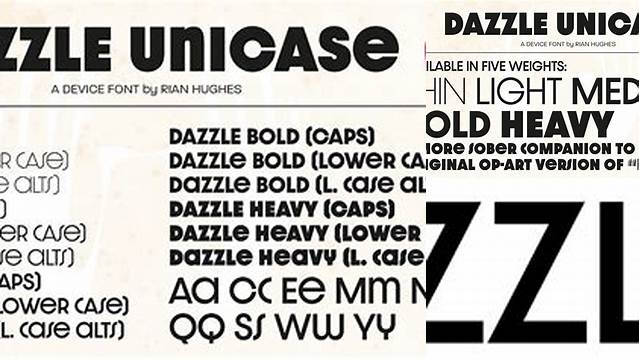
Hey guys! Ever stumbled upon a font that just screams unique and bold? Well, let's talk about Dazzle Unicase Heavy, a font that's been turning heads in the design world. In this guide, we're diving deep into everything you need to know about this font, from what makes it so special to where you can snag it for free. So, buckle up and let's get started!
1. What is Dazzle Unicase Heavy Font?
Dazzle Unicase Heavy is more than just a typeface; it's a statement. Its bold, unicase design gives it a modern and somewhat futuristic vibe. The term "unicase" means that the font blends uppercase and lowercase letters into a single form, creating a cohesive and striking visual appearance. This makes Dazzle Unicase Heavy particularly effective for headlines, logos, and branding materials where you need to grab attention. The heavy weight of the font adds to its impact, ensuring it stands out in any design. When you're thinking about making a bold statement, this font really comes into its own, offering a blend of readability and visual punch that's hard to ignore. Whether you're designing a website, a poster, or even a social media campaign, the unique character of Dazzle Unicase Heavy can elevate your project.
2. Key Features of Dazzle Unicase Heavy
So, what makes Dazzle Unicase Heavy stand out from the crowd? It's all in the details, guys. Firstly, the bold weight gives it a commanding presence. It's not a font that fades into the background; it demands attention. Then there's the unicase design – a blend of uppercase and lowercase that creates a consistent and visually appealing look. The clean lines and sharp edges give it a modern edge, perfect for contemporary designs. Another key feature is its versatility. While it shines in headlines and logos, it's also surprisingly readable in shorter body text. Plus, it often includes a range of characters and symbols, giving you plenty of options for your projects. In a nutshell, Dazzle Unicase Heavy combines boldness, style, and functionality, making it a go-to choice for designers looking to make an impact.
4. Using Dazzle Unicase Heavy in Graphic Design
Now that you've got Dazzle Unicase Heavy, how do you actually use it in your graphic design projects? This font is a powerhouse for headlines and titles, where its bold and unique style can really shine. Think about using it in posters, flyers, or website headers to grab attention. It's also fantastic for logo design, giving brands a modern and edgy look. When incorporating it into your designs, consider the overall aesthetic you're aiming for. Dazzle Unicase Heavy pairs well with minimalist designs, where its boldness can be the focal point. However, it can also work in more complex layouts, provided you balance it with simpler fonts for body text. Experiment with different sizes, weights, and colors to see what works best for your project. Remember, the key is to use it intentionally and strategically to create a visually compelling design.
5. Dazzle Unicase Heavy for Logo Design
When it comes to logo design, Dazzle Unicase Heavy can be a game-changer. Its distinctive unicase style and bold weight make it perfect for creating logos that are both memorable and modern. Think about brands that want to project a sense of innovation or edginess – this font can help convey that message effectively. The unique letterforms ensure that your logo stands out from the competition, making it instantly recognizable. When using Dazzle Unicase Heavy in a logo, consider the overall brand identity. It works particularly well for tech companies, creative agencies, and startups looking to disrupt the market. Pair it with a simple color palette and clean graphics to let the font's personality shine. Don't be afraid to experiment with letter spacing and kerning to fine-tune the logo's appearance. With Dazzle Unicase Heavy, you can create a logo that's not just visually appealing but also tells a story about your brand.
6. Dazzle Unicase Heavy for Website Headers
Website headers are prime real estate for making a first impression, and Dazzle Unicase Heavy can help you nail it. The font's bold and eye-catching design ensures that your headers grab visitors' attention right away. Whether you're designing a personal blog or a corporate website, this font can add a touch of modernity and sophistication. Consider using it for headings, navigation menus, and call-to-action buttons to create a cohesive visual experience. When using Dazzle Unicase Heavy for website headers, make sure the font size is large enough to be easily readable, but not so large that it overwhelms the design. Pair it with a complementary font for body text to ensure readability throughout the site. Also, think about the color contrast between the font and the background. A high-contrast combination will make your headers pop, while a low-contrast one can create a more subtle effect. Ultimately, Dazzle Unicase Heavy can transform your website headers into powerful branding elements.
7. Dazzle Unicase Heavy in Print Media
While digital design often steals the spotlight, Dazzle Unicase Heavy also shines in print media. Its bold and distinctive style makes it an excellent choice for posters, flyers, brochures, and magazine layouts. Imagine a concert poster with the band's name emblazoned in Dazzle Unicase Heavy – it's sure to grab attention. Or a brochure for a trendy new product, where the font adds a touch of sophistication. When using it in print, consider the overall design and the message you want to convey. The font's boldness works well for headlines and titles, but you might want to pair it with a more legible font for body text. Think about the paper stock and printing techniques you're using, as these can affect how the font appears. For instance, a glossy paper might make the font appear even bolder, while a matte finish can soften its impact. By carefully considering these factors, you can leverage Dazzle Unicase Heavy to create stunning print materials.
8. Pairing Dazzle Unicase Heavy with Other Fonts
Fonts rarely work in isolation, so knowing how to pair Dazzle Unicase Heavy with other typefaces is crucial. Given its bold and distinctive nature, it's best paired with simpler, more neutral fonts that won't compete for attention. Think about sans-serif fonts like Open Sans, Lato, or Montserrat for body text. These fonts offer clean lines and good readability, allowing Dazzle Unicase Heavy to take center stage in headlines and titles. Another approach is to pair it with a classic serif font like Times New Roman or Georgia for a touch of contrast and sophistication. This can work well in designs that aim for a balance between modern and traditional aesthetics. When pairing fonts, consider the overall tone and style of your project. Experiment with different combinations to see what works best, and don't be afraid to break the rules a little. The goal is to create a harmonious and visually appealing design that effectively communicates your message.
30. Final Thoughts: Making Dazzle Unicase Heavy Work for You
So, we've covered a lot about Dazzle Unicase Heavy, from its key features to how to use it effectively in your designs. The key takeaway is that this font is a powerful tool, but like any tool, it's most effective when used intentionally and thoughtfully. It's a font that commands attention, so it's best used sparingly for headlines, logos, and short bursts of text. Pair it with simpler fonts for body text to ensure readability. Pay attention to kerning and letter spacing to fine-tune its appearance. And most importantly, consider the overall message you want to convey and whether Dazzle Unicase Heavy aligns with your brand or project. By following these guidelines, you can make Dazzle Unicase Heavy work for you and create designs that are both visually striking and effective in communicating your message. Happy designing, guys!